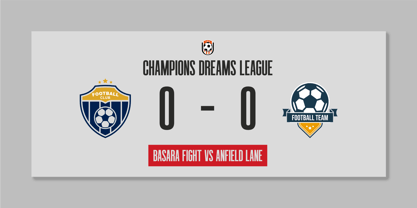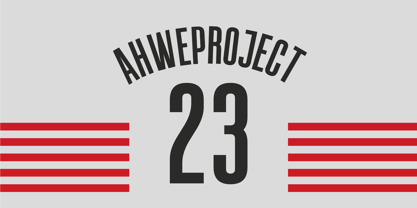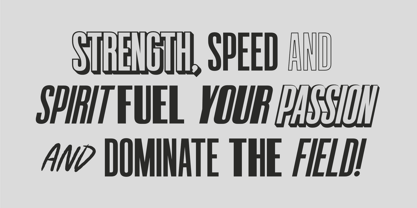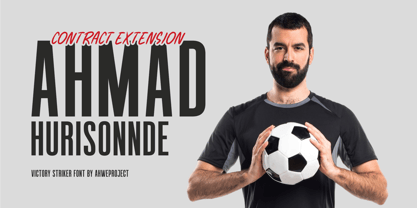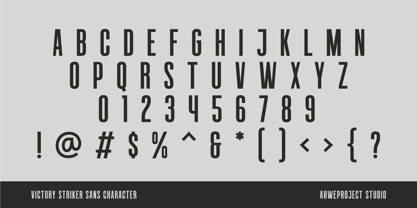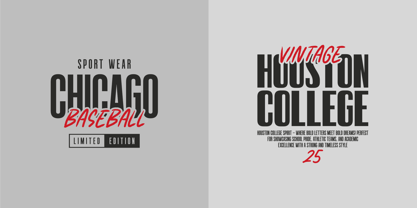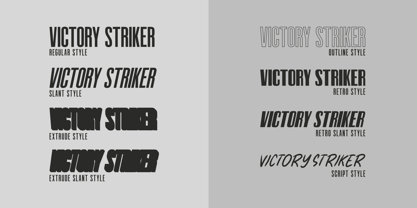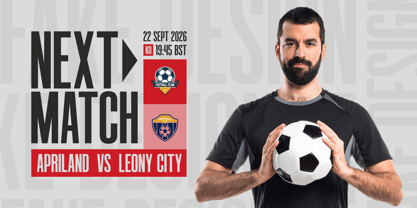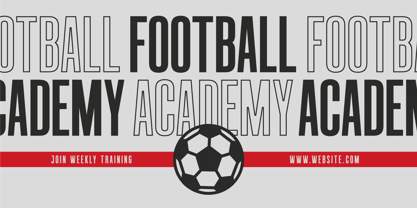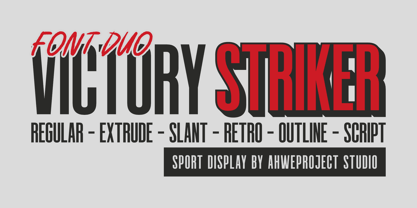
Victory Striker Slant
by ahweproject
The Victory Striker Slant Font Family was designed by Dida Ahluddin and published by ahweproject. Victory Striker Slant contains 8 styles and family package options. More about this family
Introducing Victory Striker, a bold and dynamic sports display font duo designed to bring power and impact to your projects. Combining a strong, tall sans serif with a striking script, this font is perfect for sports branding, athletic team logos, esports, posters, and energetic headlines. With multiple styles including Regular, Extrude, Slant, Retro, Outline, and Script, Victory Striker gives you the flexibility to create eye-catching and competitive designs. Elevate your typography game with this adrenaline-pumping font duo!
Features :
• Uppercase & lowercase
• Numbers and punctuation
• Multilingual
• Alternates
Designers: Dida Ahluddin
Foundry: ahweproject